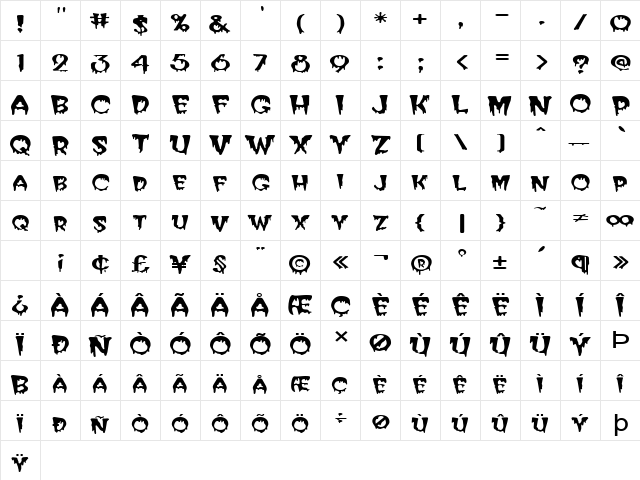
Creepy-Extended Normal
Design Context for Creepy-Extended Typeface
Creepy-Extended carries an unsettling edge — its distorted letterforms are built to unsettle, perfectly suited to horror, Halloween, and dark creative work.
Perfect for anything that needs to unsettle — game titles, horror branding, and macabre invitations.
Font Pairing: Pair with a clean neutral sans-serif for body copy to let Creepy-Extended's character lead without overwhelming the composition.
Pro Tip: Use Creepy-Extended at larger display sizes for maximum impact. Consider generous tracking to let the disturbing character of each letterform breathe.